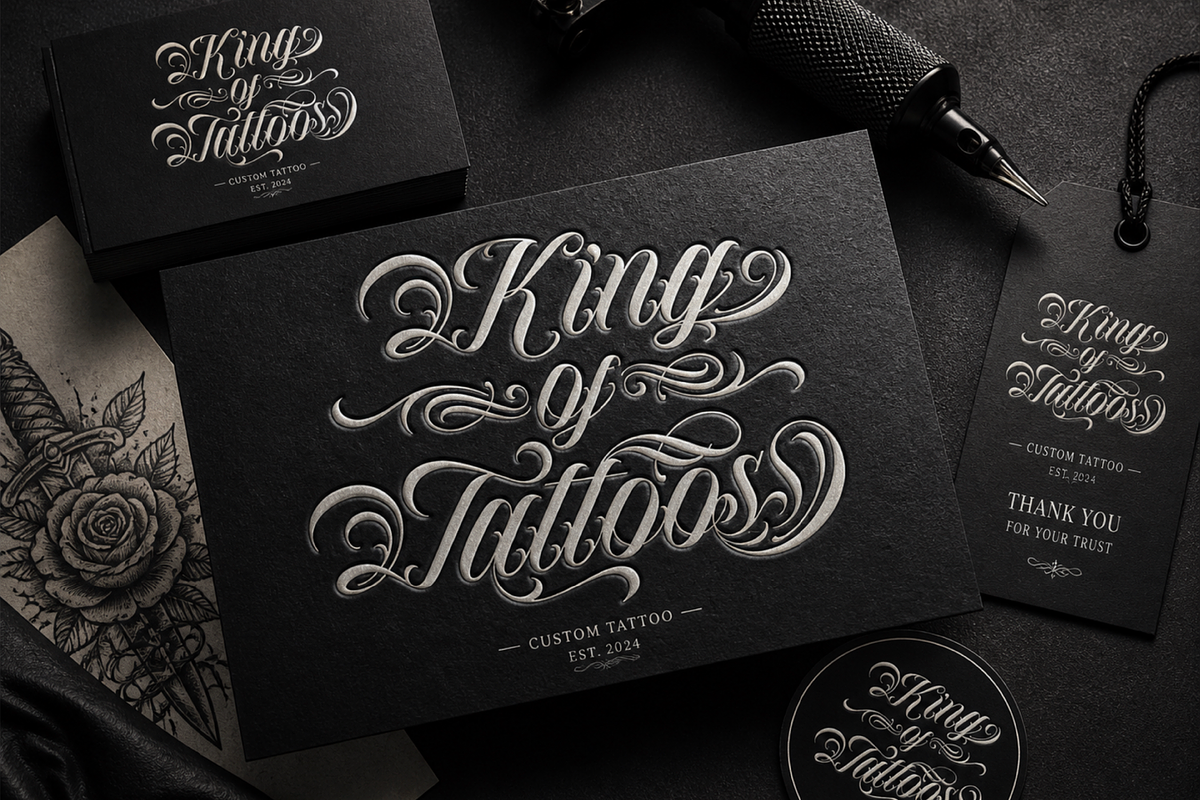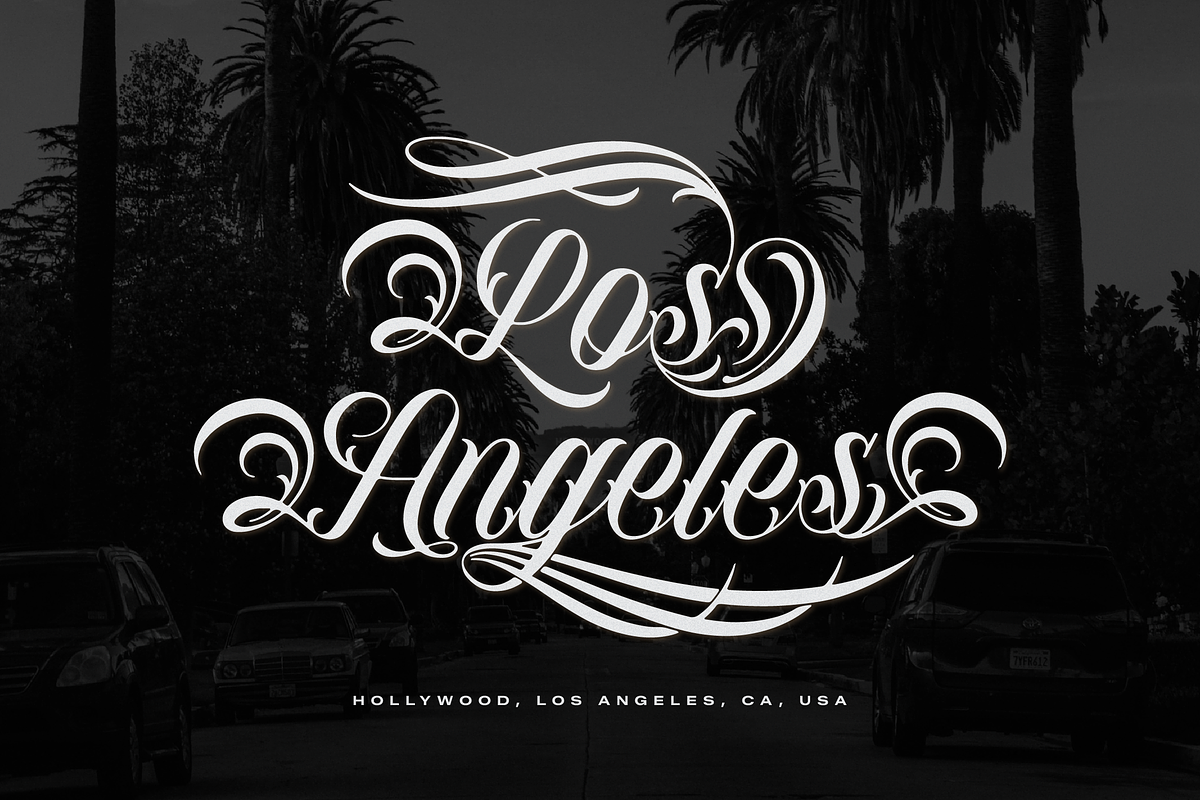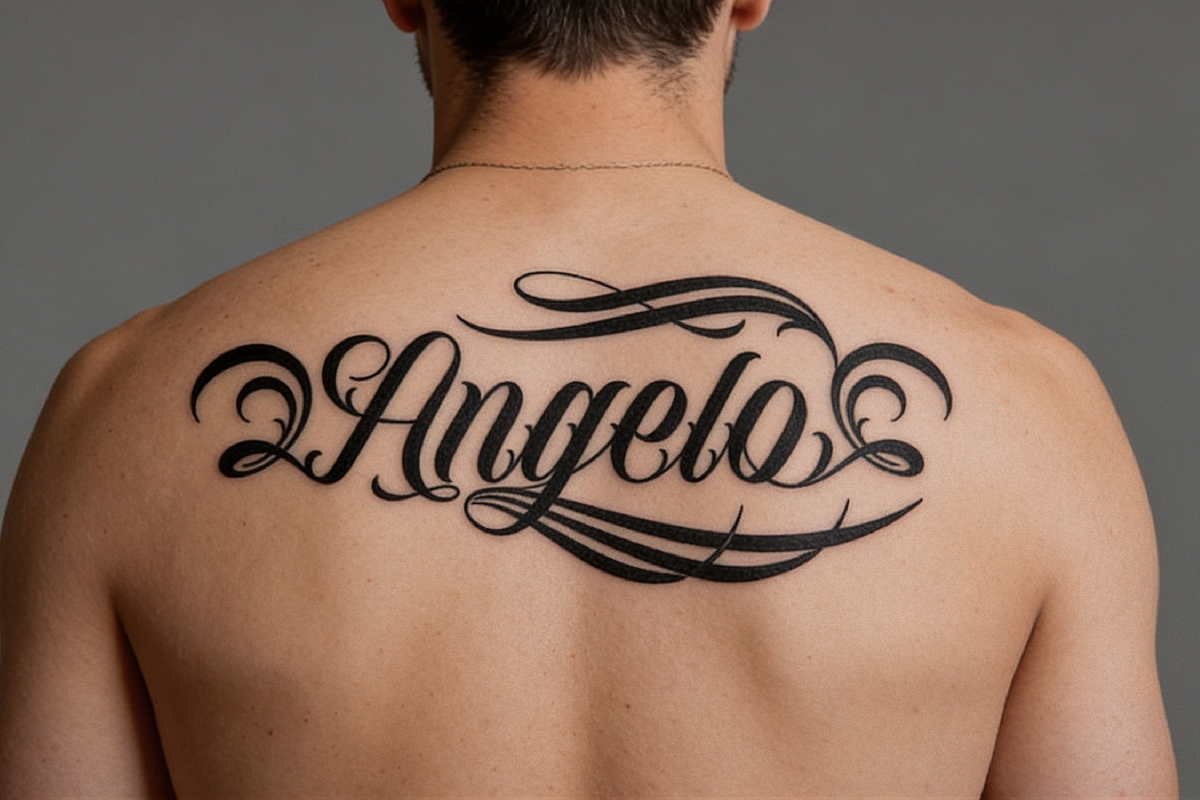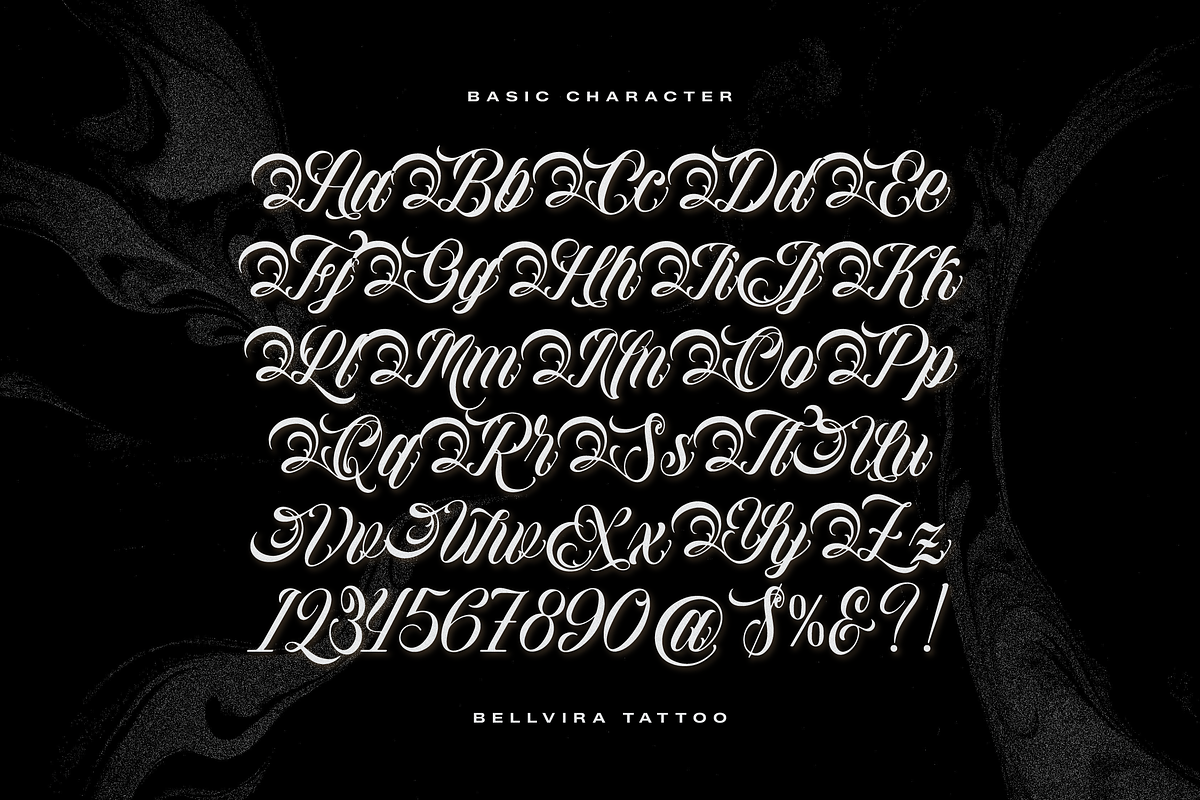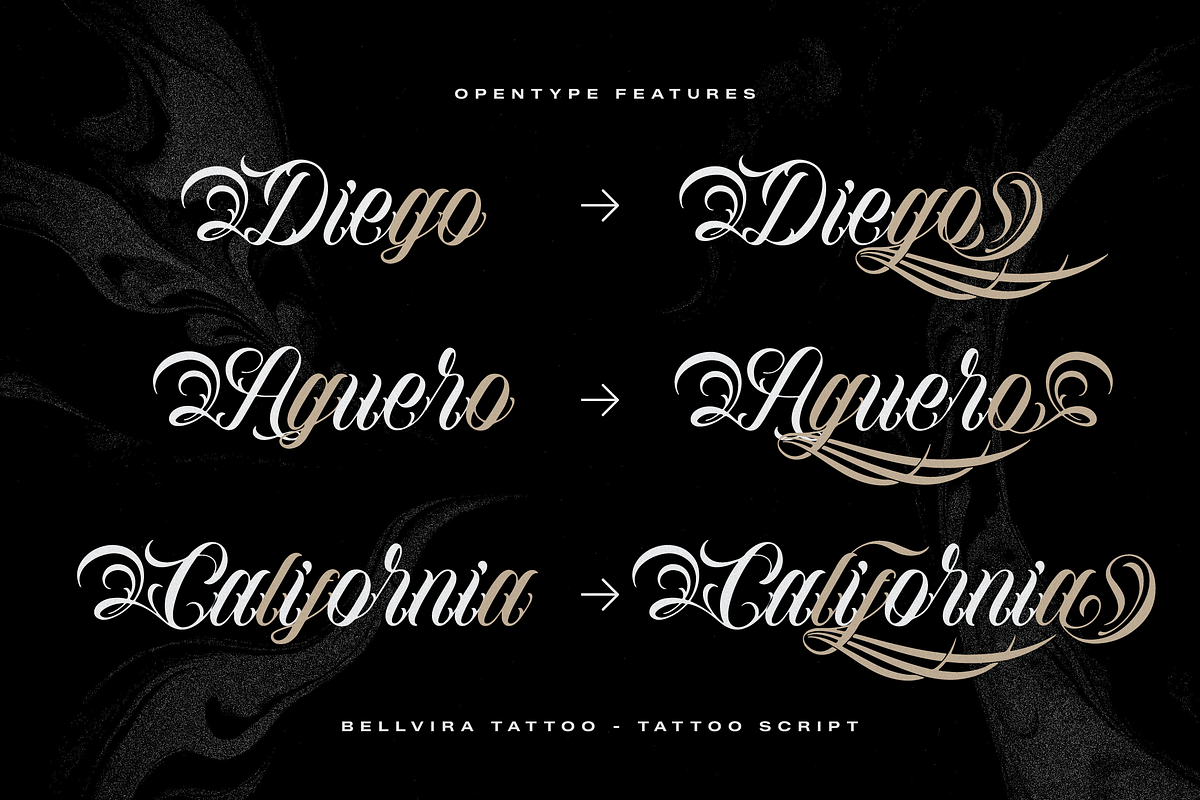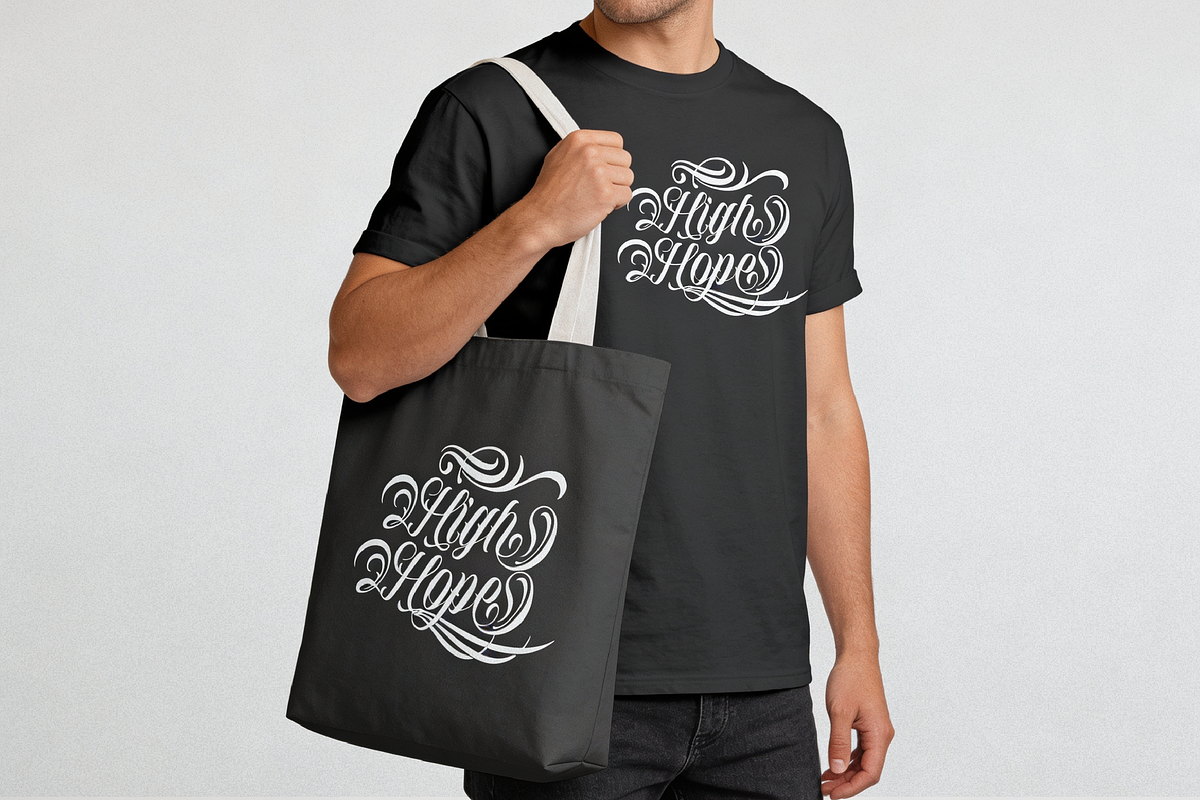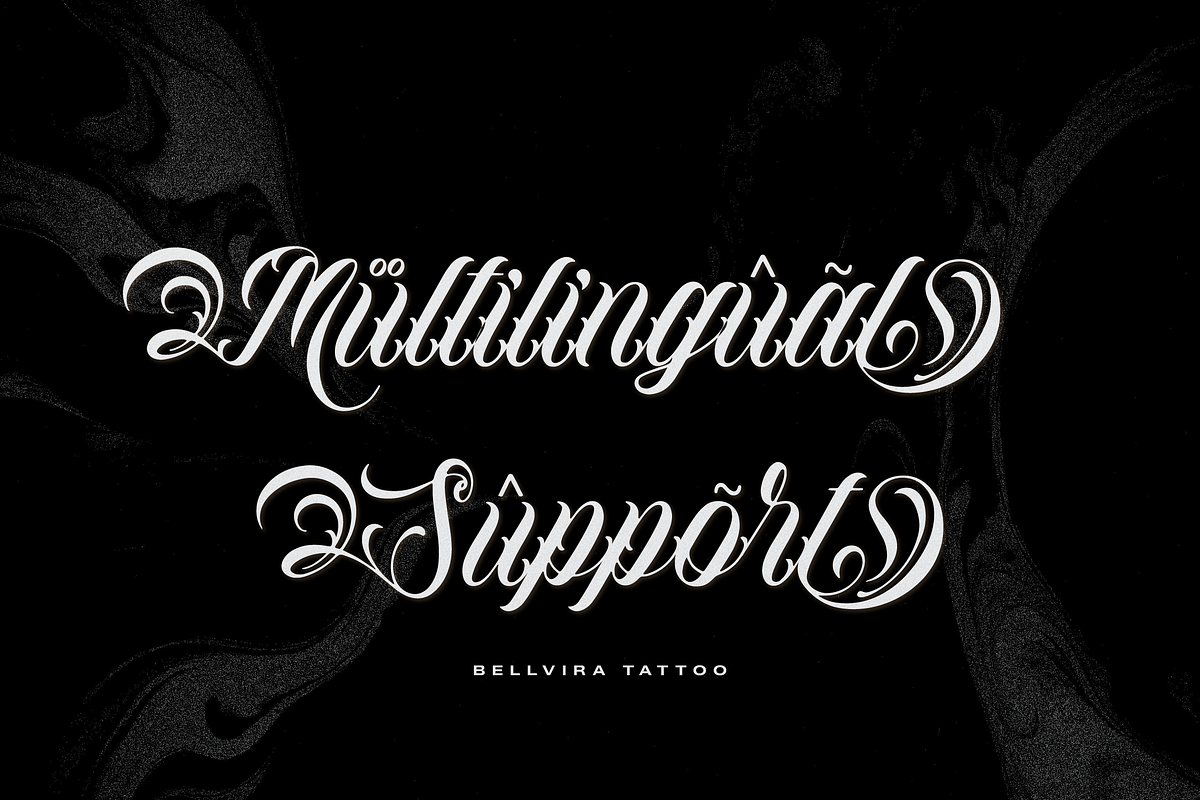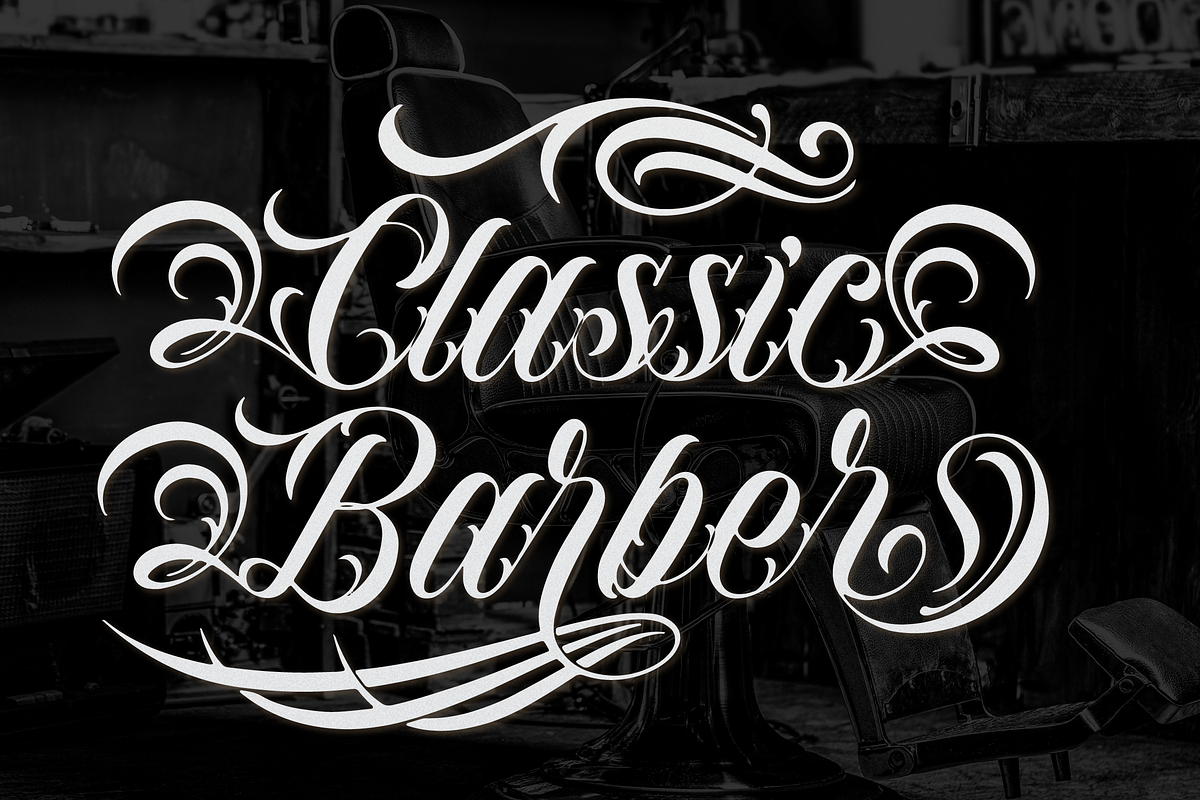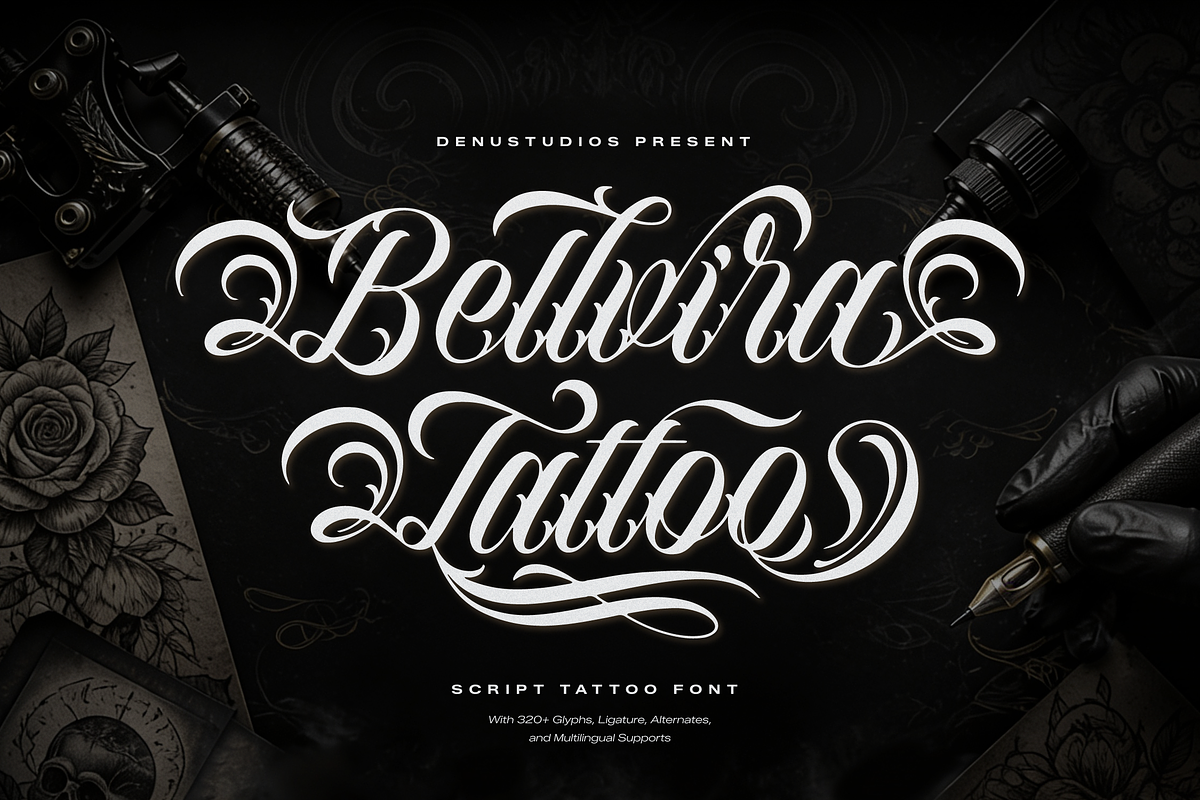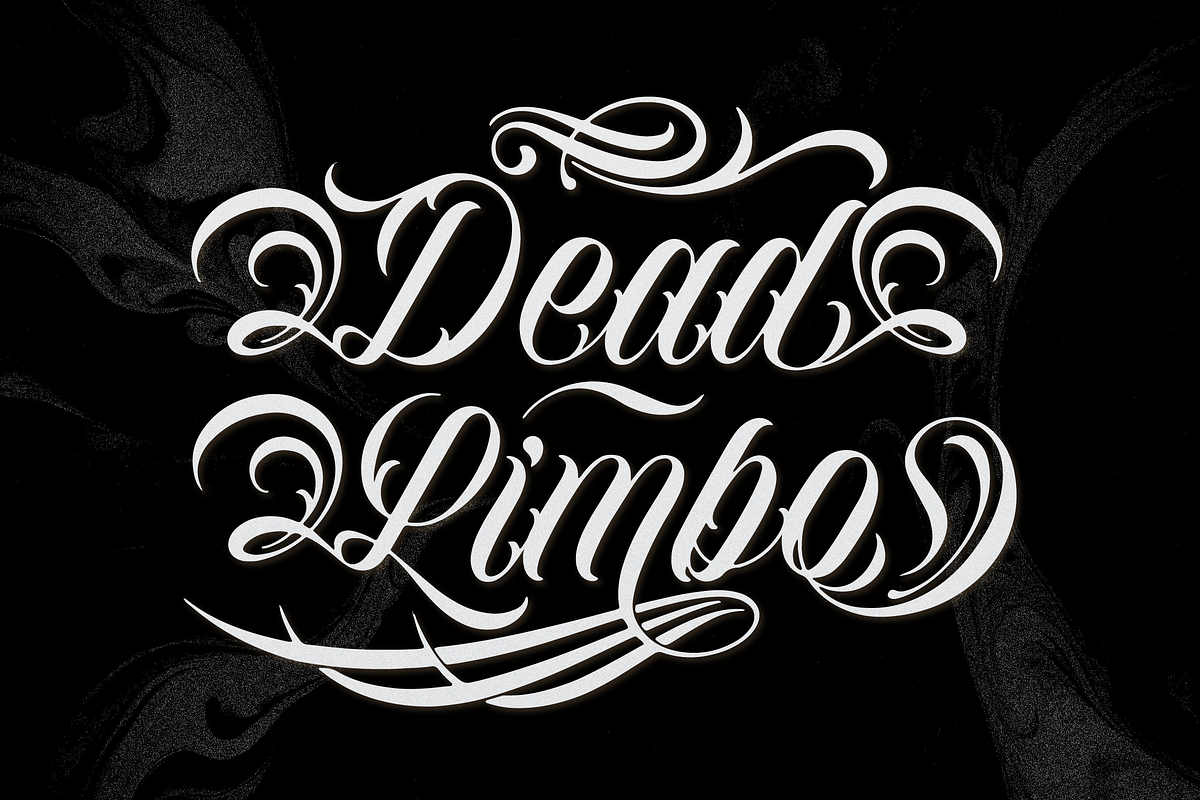
Bellvira Tattoo | Script Tattoo
Bellvira Tattoo | Script Tattoo, from Denustudios, suitable for any projects such as: logos, branding projects, homeware designs, product packaging, mugs, quotes, posters, shopping bags, t-shirts, book covers, name card, invitation cards, greeting cards, label, photography, watermark, special events, and all your other lovely projects that need a Tattoo taste.
Standard glyphs
Alternate and Ligature
Fonts include multilingual support